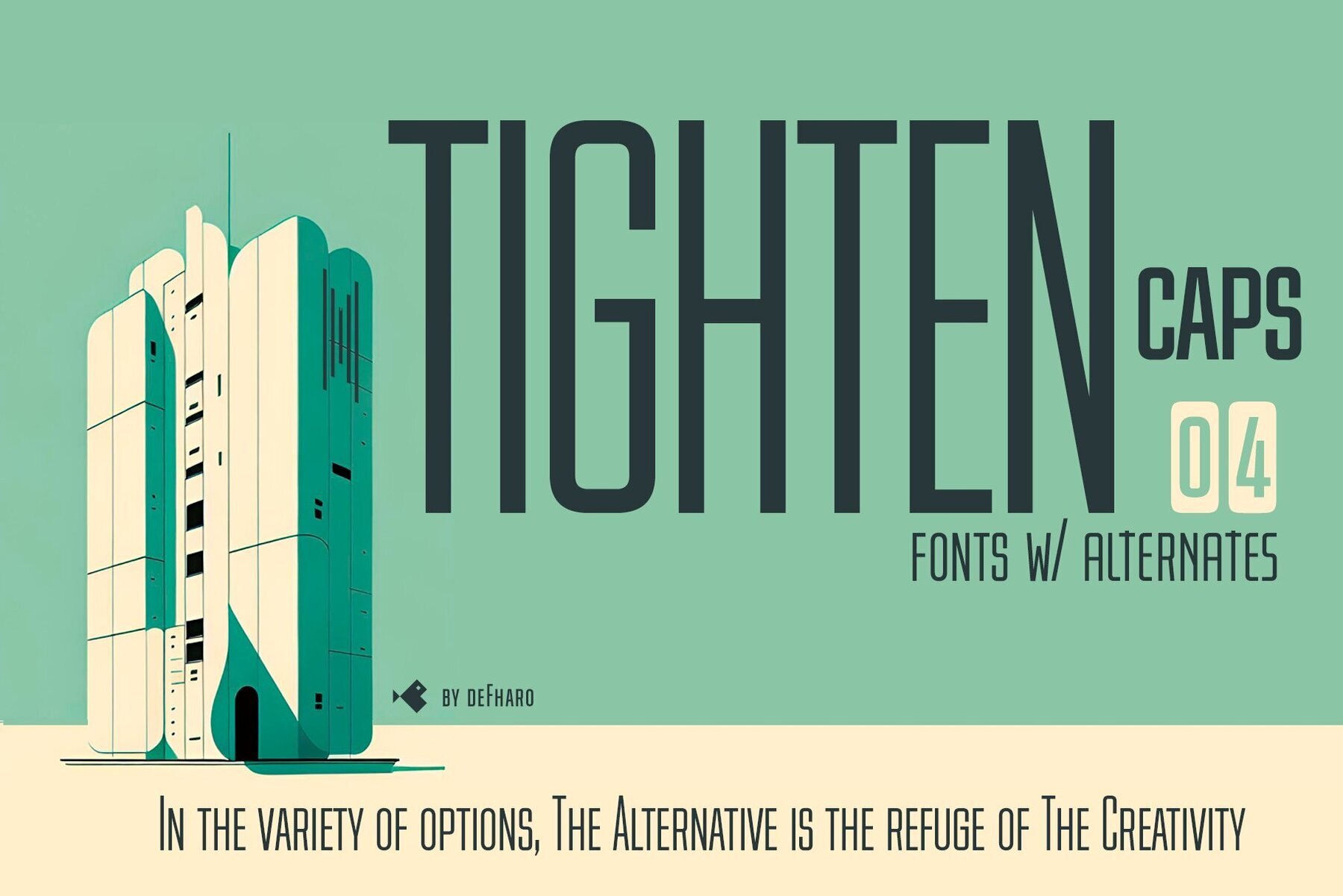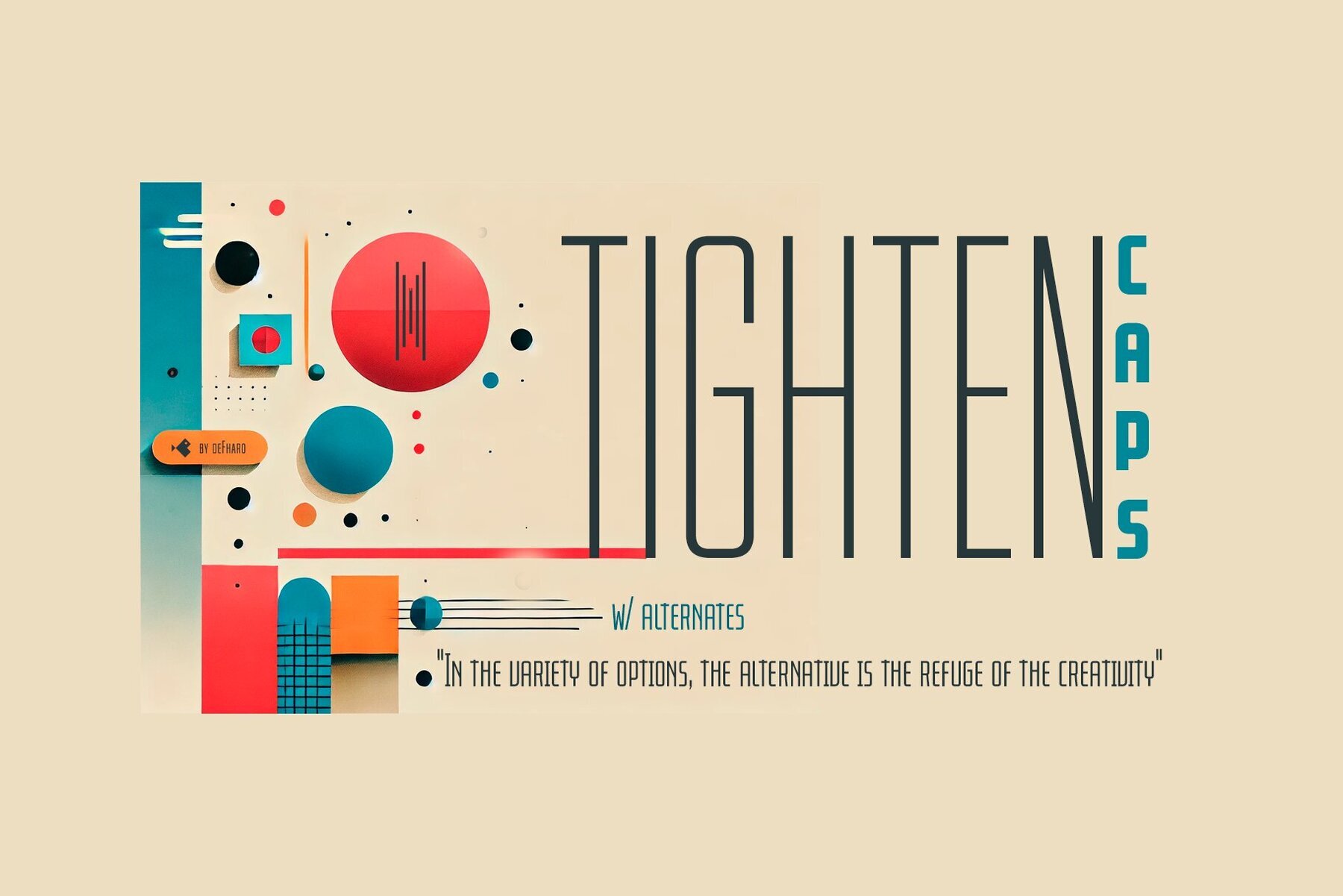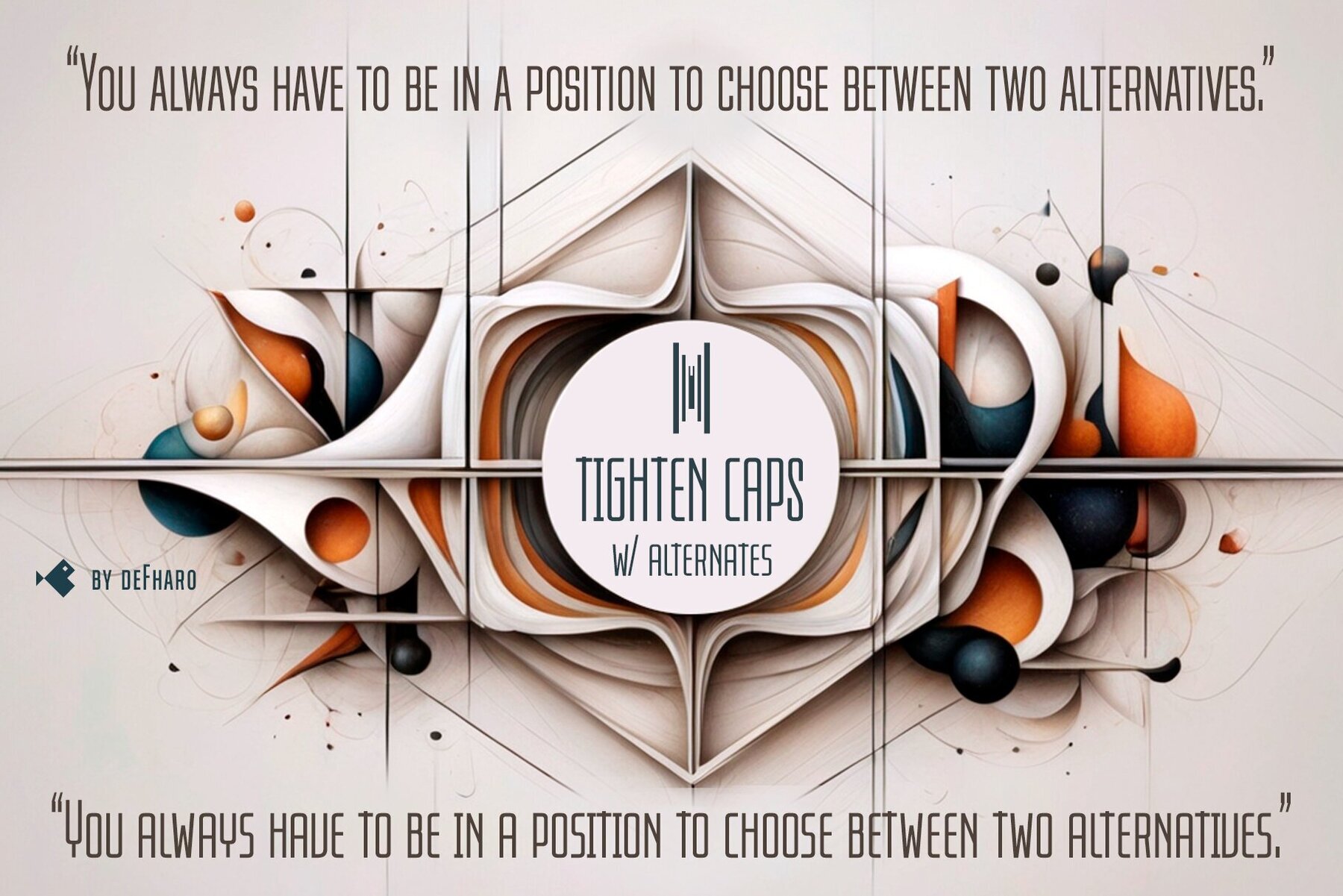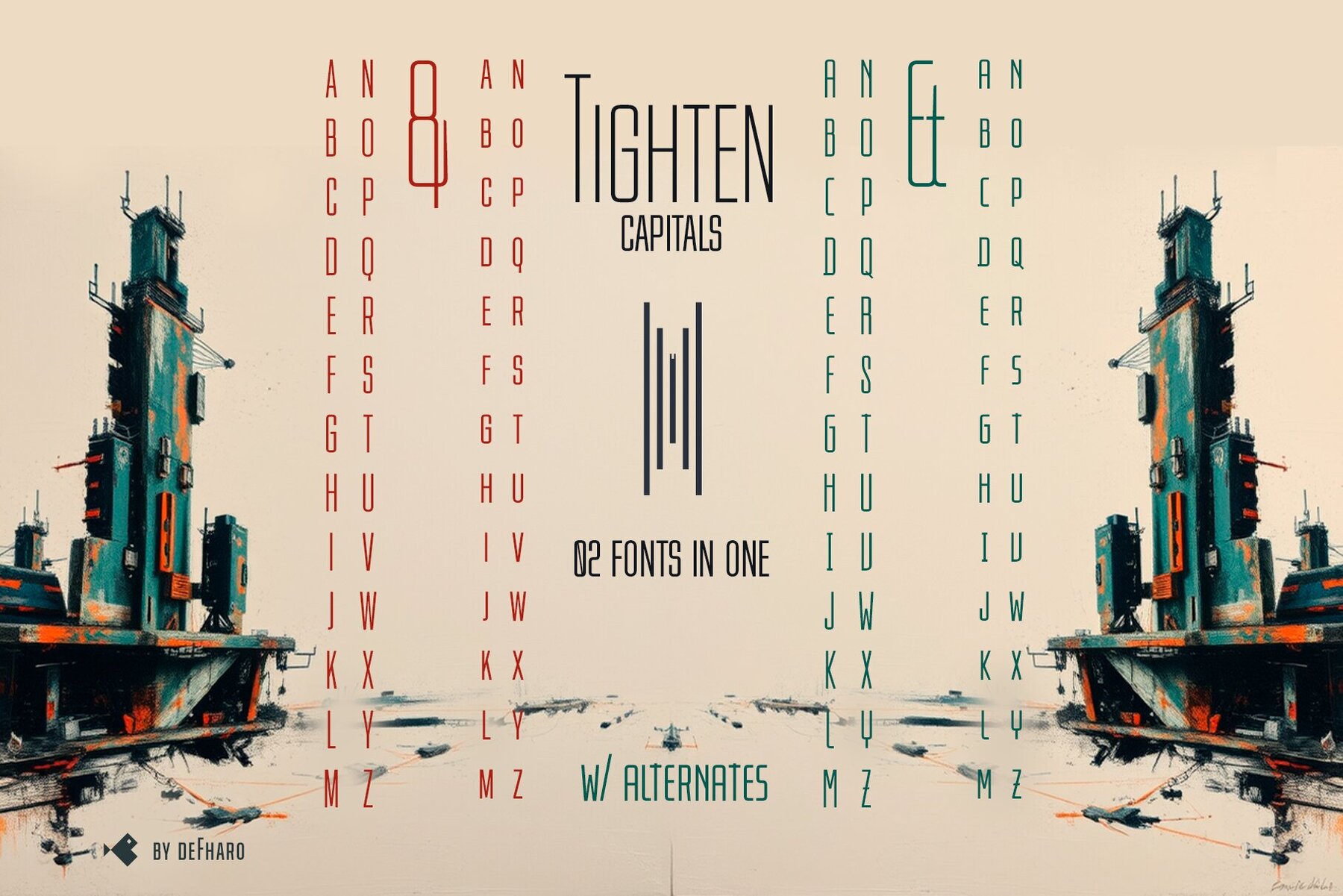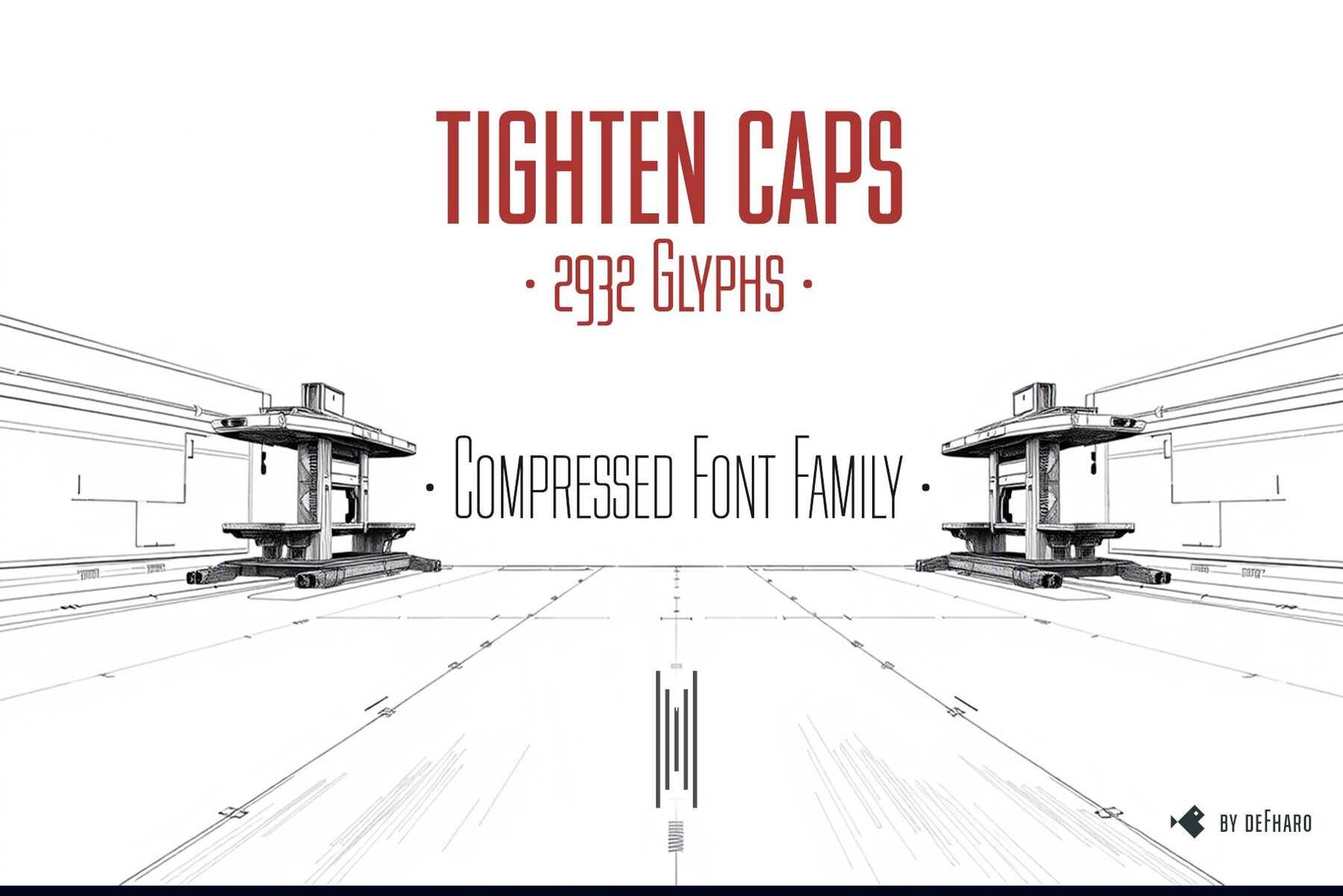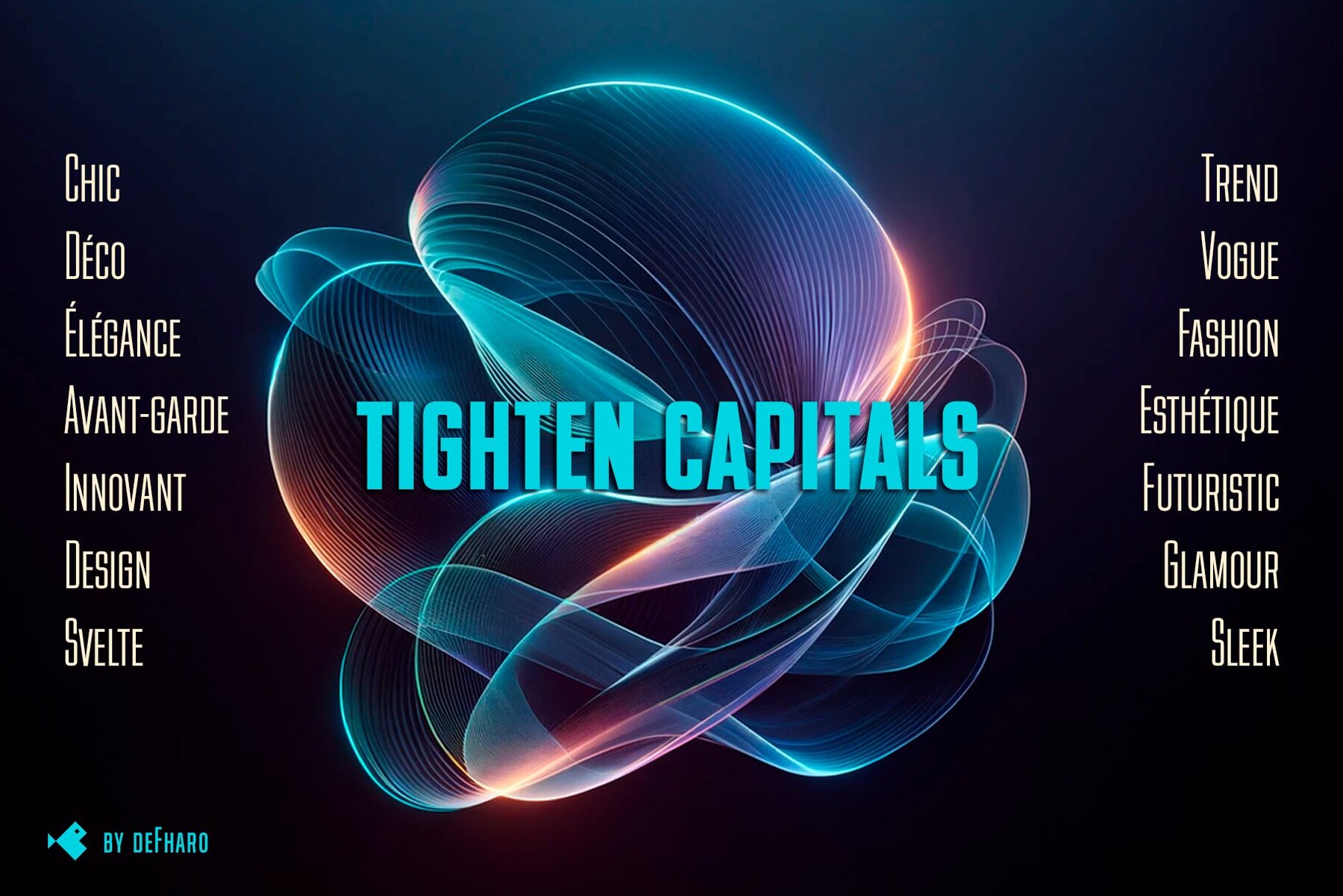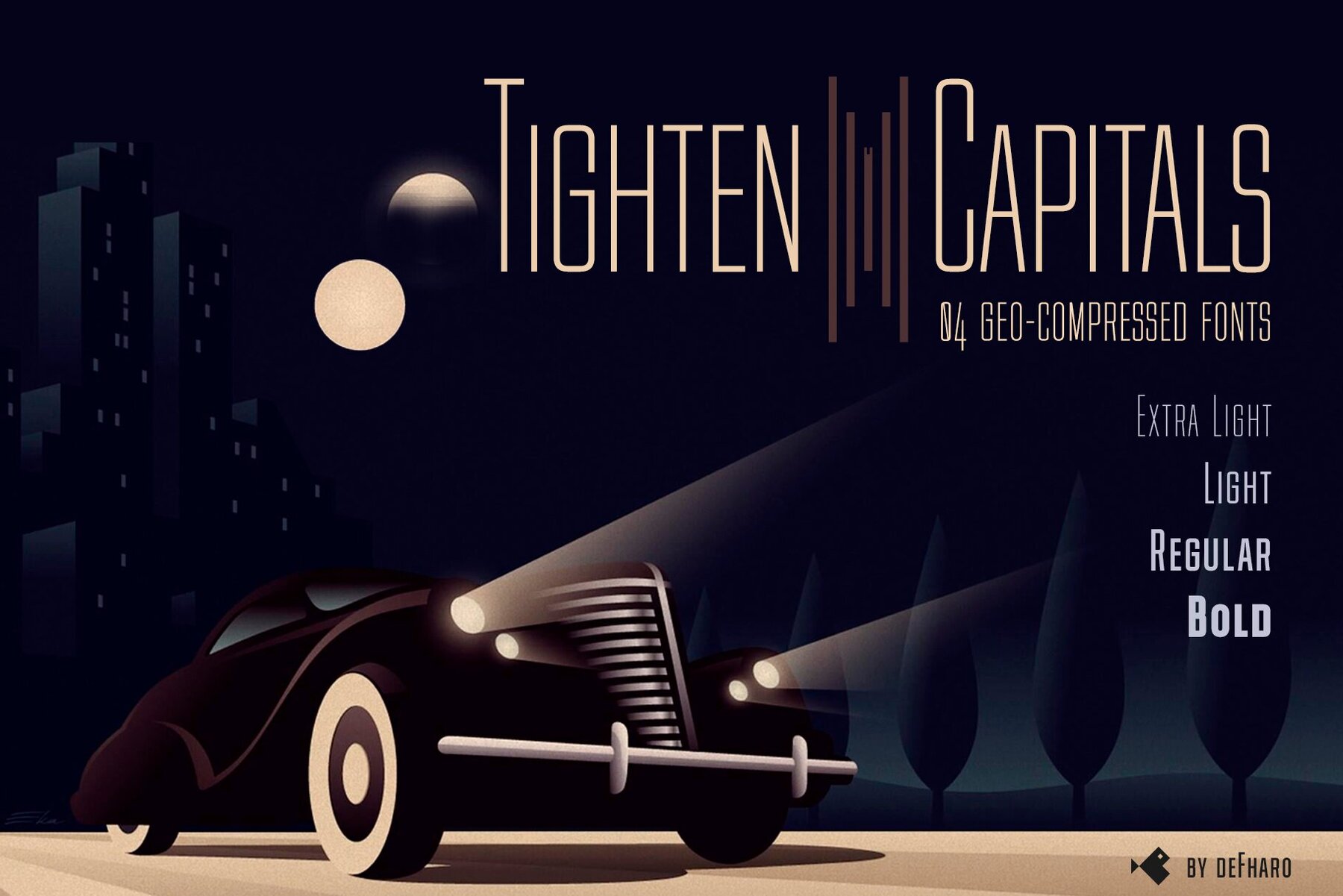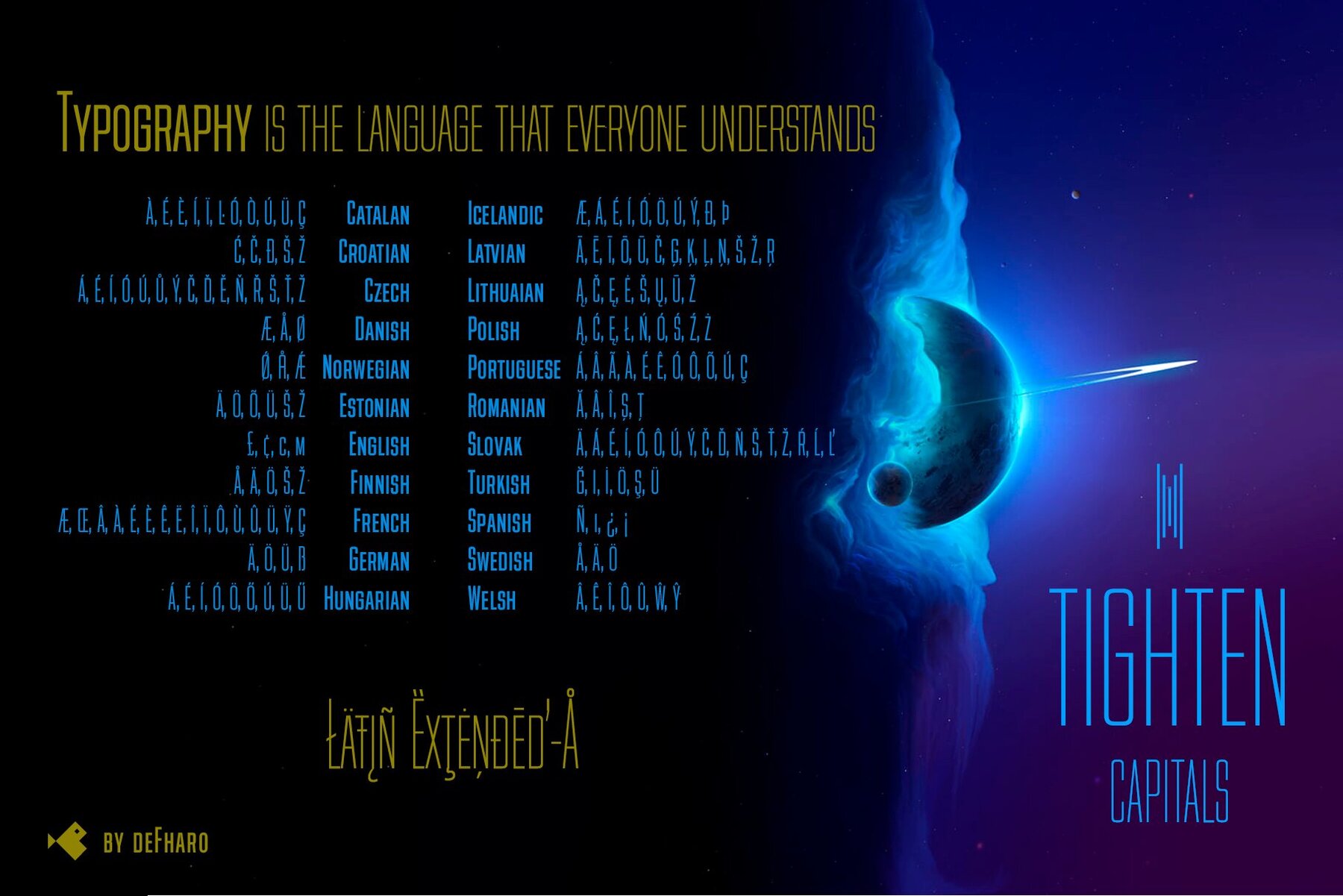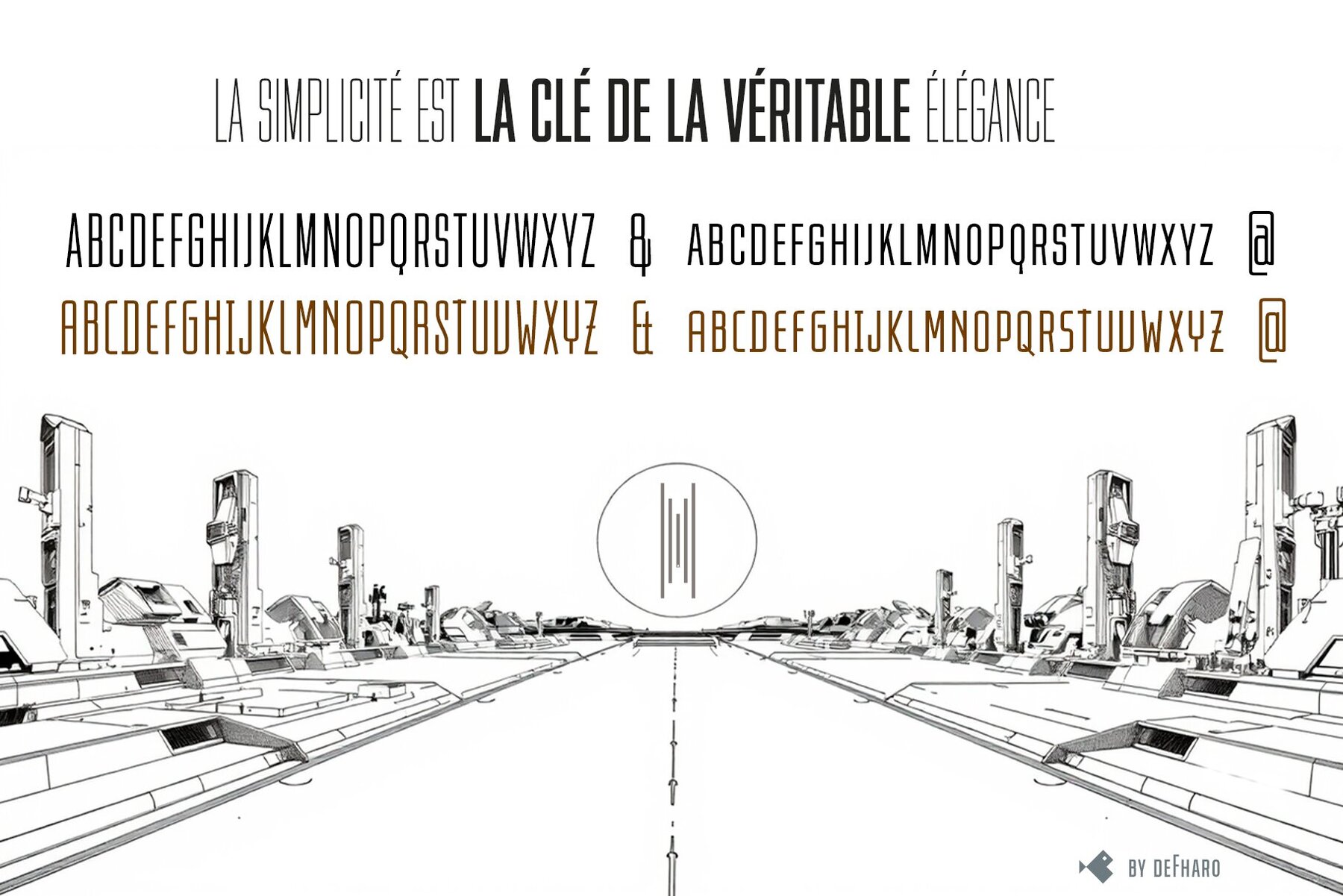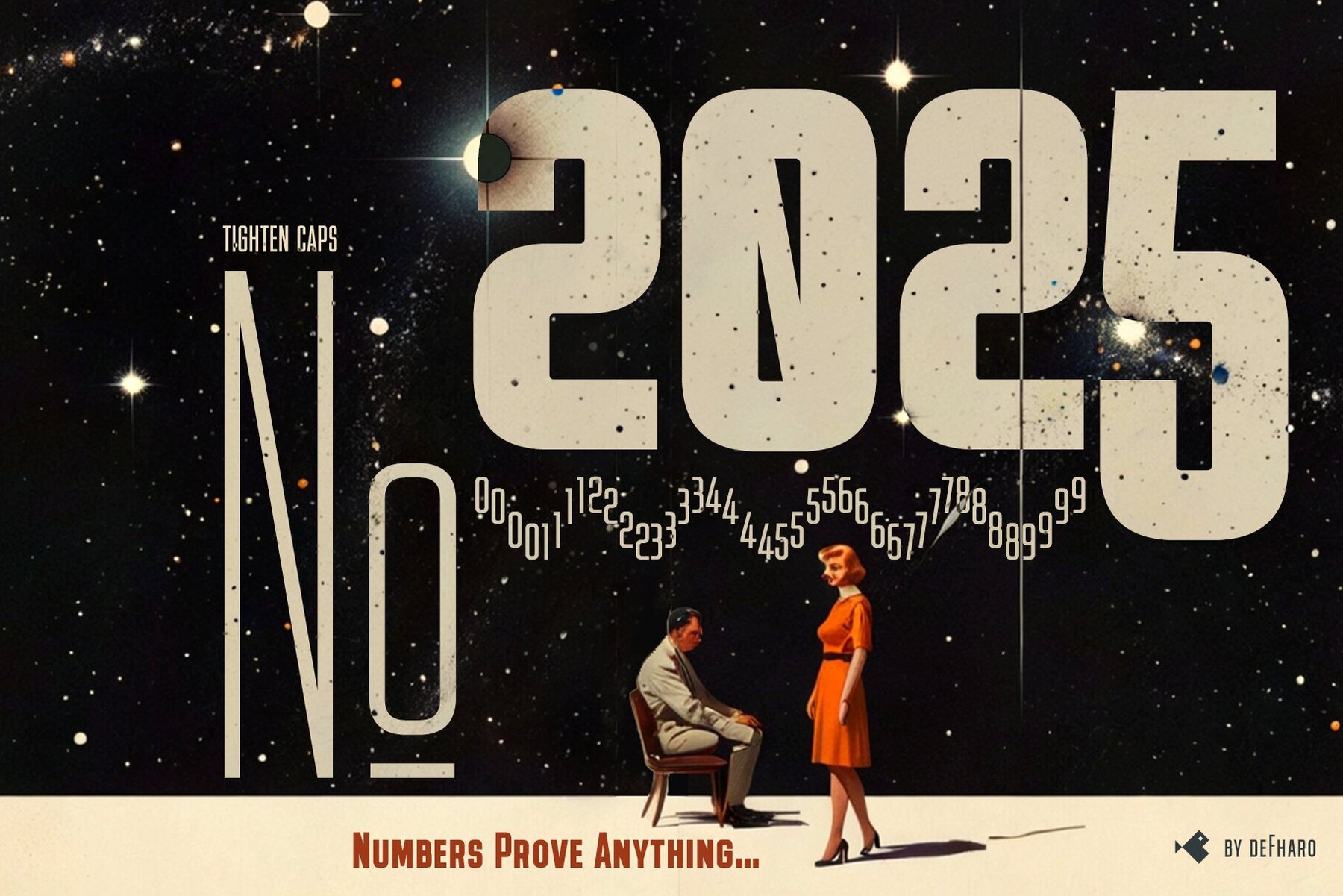
Tighten Caps Font
Introducing Tighten Caps—a compressed sans-serif typeface family designed for elegance, functionality, and efficiency. This essential tool for designers excels in projects where graphic differentiation is key. Tighten Caps not only optimizes space but also enhances the aesthetic quality of any creative endeavor. Available in four weights—Light, Regular, Medium, and Bold—this typeface offers versatility suited for a wide range of applications. Whether it's editorial typesetting, brochure design, product packaging, logo creation, or signage, Tighten Caps meets the demands. Experience a new dimension of possibilities with the advanced OpenType features of Tighten Caps.Tighten Caps Typeface Family
Advanced Features